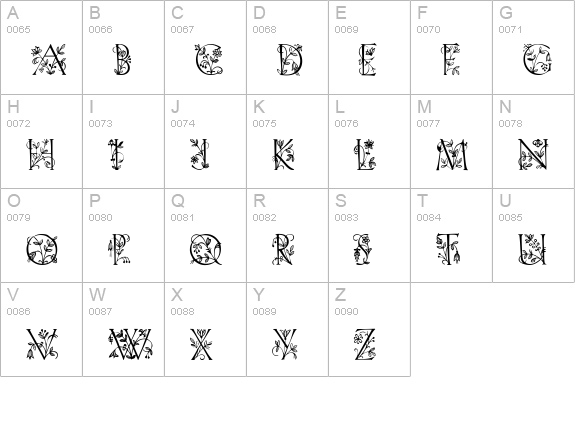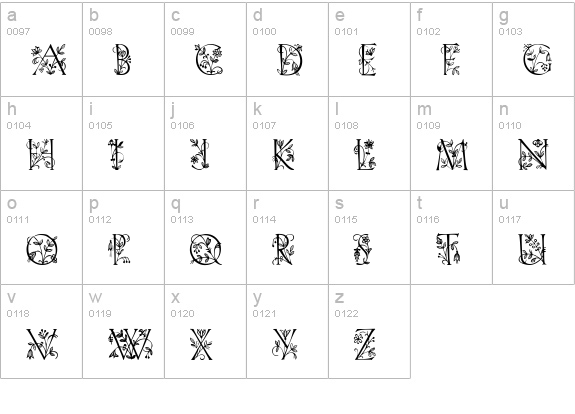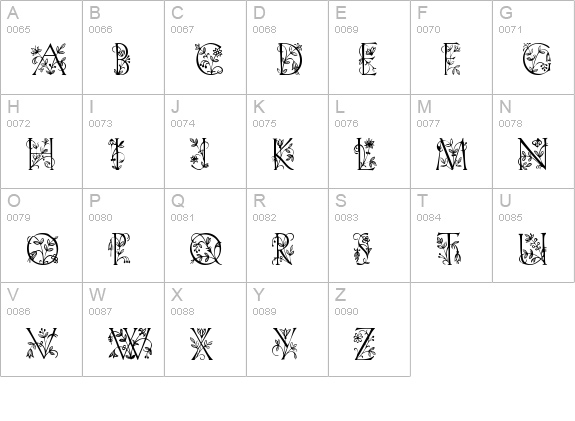
GardenDisplayCaps Font Details
GardenDisplayCaps font is a charming and elegant typeface that exudes sophistication and beauty. With its delicate strokes and intricate details, this font is perfect for adding a touch of class to any design project. The GardenDisplayCaps font is versatile and can be used for a variety of purposes, from invitations and greeting cards to logos and branding. Best of all, GardenDisplayCaps font is available for free download at FontsMarket.com. This means you can easily access this stunning font and enhance your projects with its timeless appeal. Don't miss out on the opportunity to elevate your designs with the GardenDisplayCaps font – download it today and let your creativity blossom!